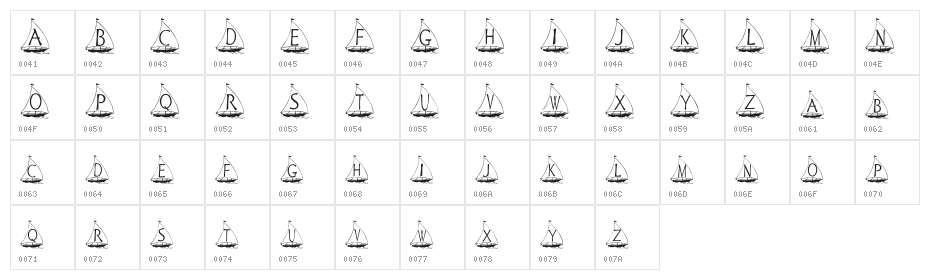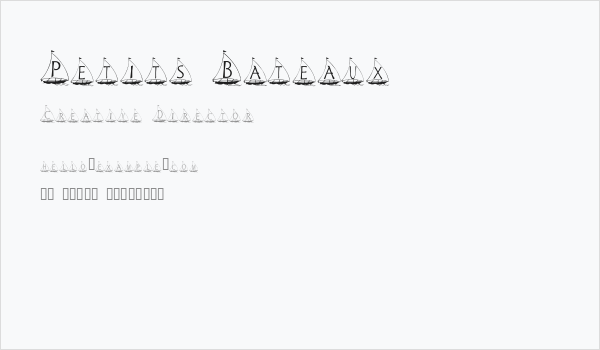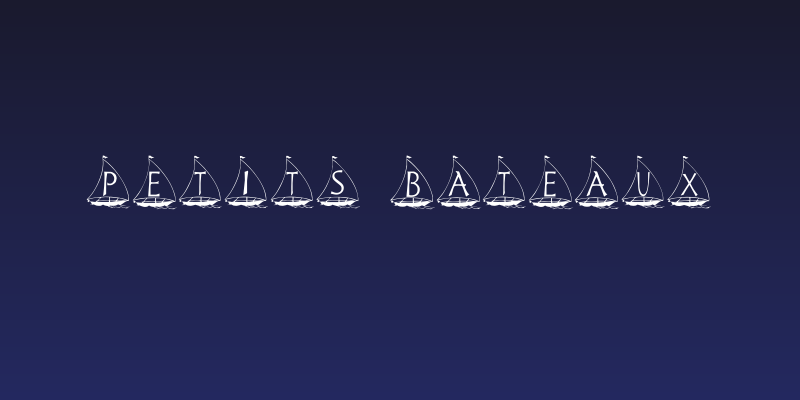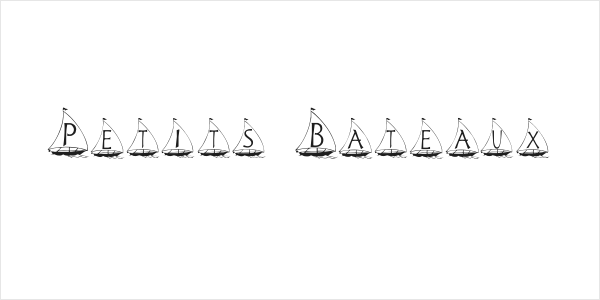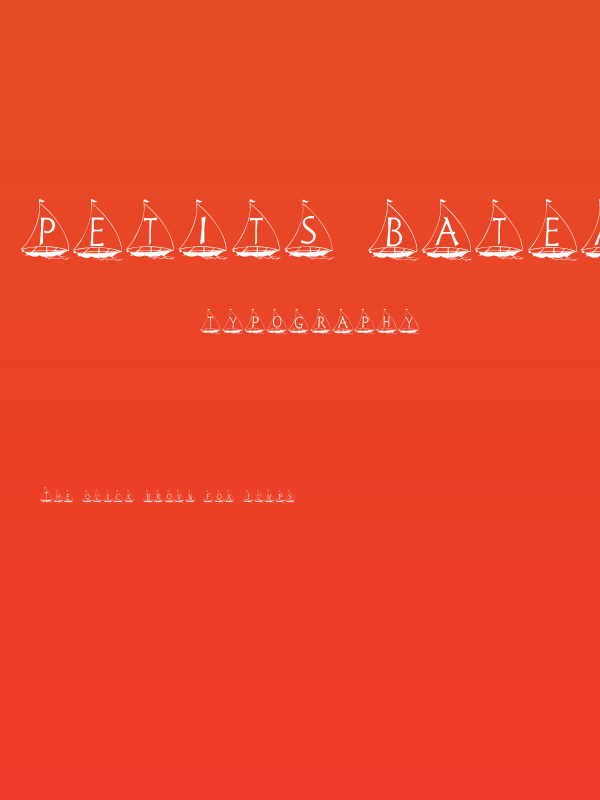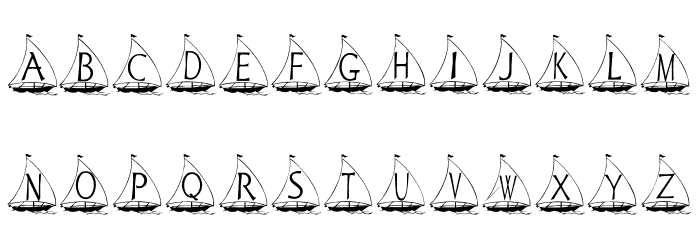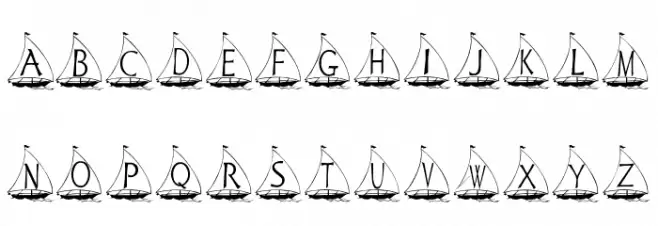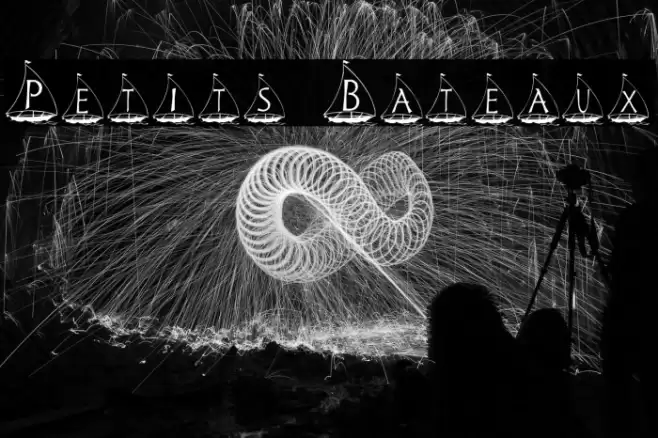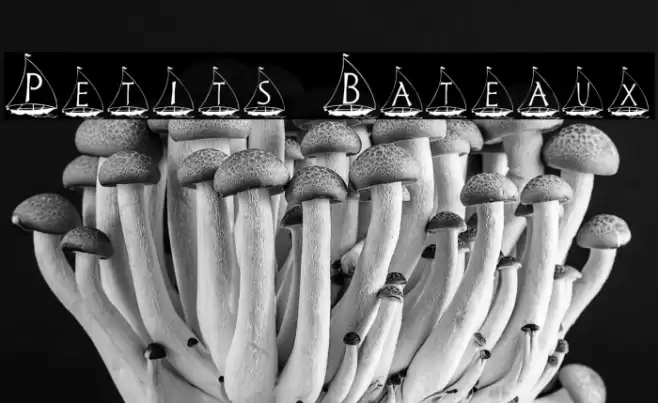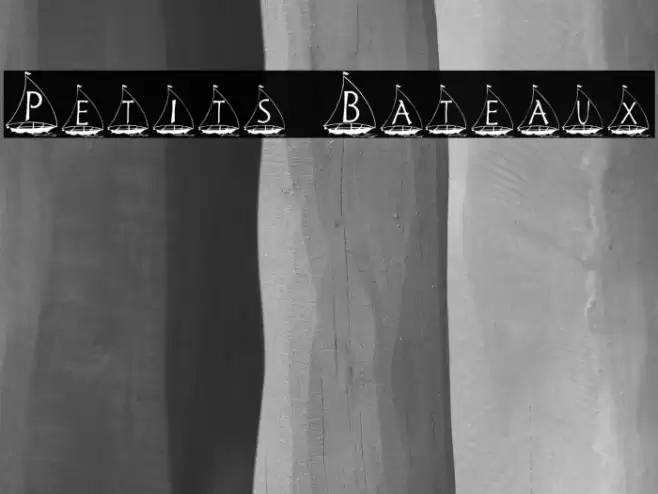
Petits Bateaux Font
Petits Bateaux Description
This font features a unique and playful design where each letter is integrated into the sail of a small boat. The letters are uppercase and have a whimsical, nautical theme, making them ideal for projects related to the sea or maritime activities. The design is consistent across all characters, with each letter appearing as if it is part of a fleet of sailboats. The font is decorative and captures a sense of adventure and exploration, perfect for creative and thematic uses.
| Use Case | Logos, Thematic designs, Event invitations |
| Proposed Projects | Ideal for children's books, nautical-themed events, logos for maritime businesses, and playful design projects. |